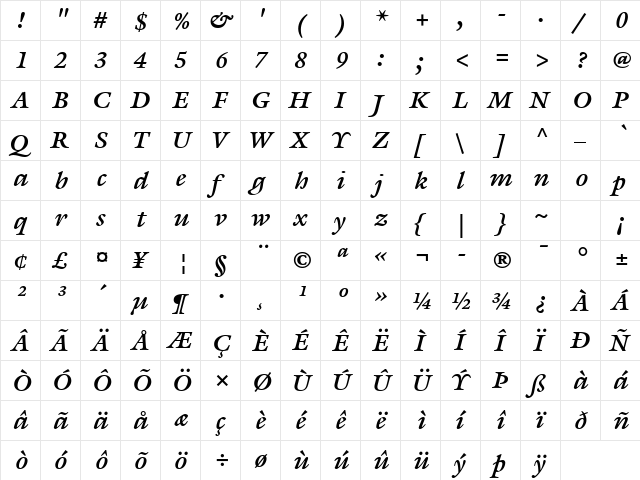
Galliard eText ITC Bold Italic
| Foundry | International Typeface Corporation |
| Designer | Matthew Carter |
Design Context for Galliard eText ITC Typeface
Galliard eText ITC is a composed and adaptable typeface that performs quietly and consistently across a wide range of design contexts. Its italic angle brings a sense of urgency and motion to the letterforms. The heavy weight commands attention and anchors typographic hierarchies.